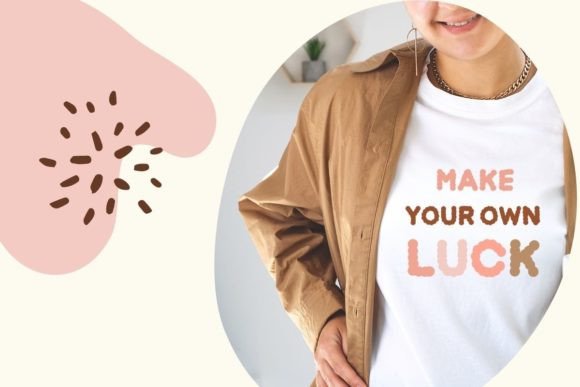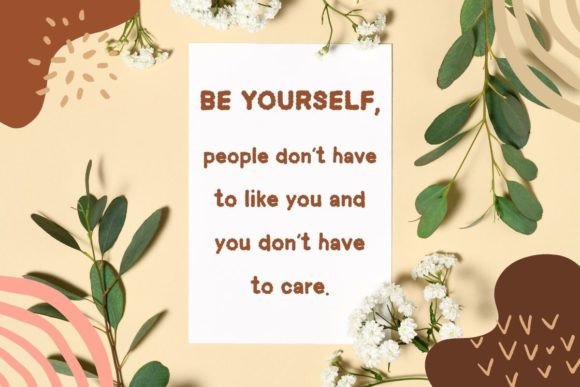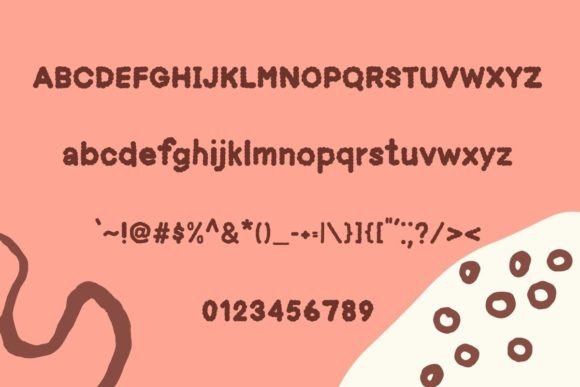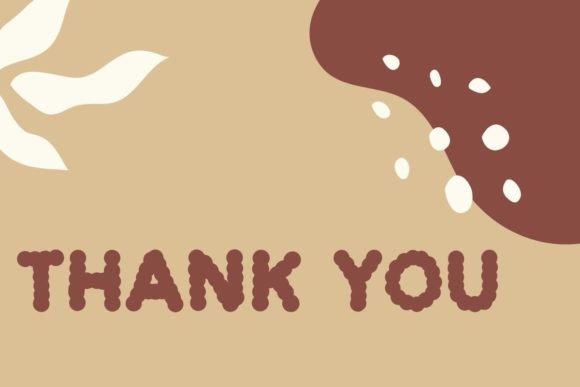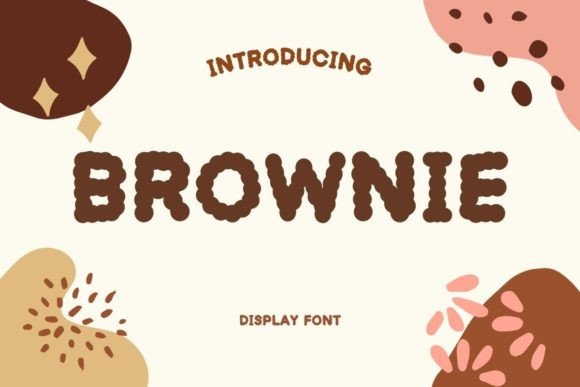
The Ultimate Guide to Brownie Font: A Deliciously Bold Addition to Your Design Library
I’ll never forget the time I was working on a project for a client’s bakery, and I needed a font that would make their brand stand out. I scoured the internet, tried out dozens of fonts, but nothing seemed quite right. That was until I stumbled upon Brownie Font. This bold, hand-drawn display font has been a game-changer for my designs, and I’m excited to share its awesomeness with you! 🍰
An Honest Review of Brownie Font
So, what makes Brownie Font so special? Let’s dive into the good stuff! ✨
- ✅ Perfect for display text: Brownie Font is designed to make a statement. Its bold, chubby characters are perfect for creating eye-catching posters, banners, and advertising materials.
- ✅ Cute and playful: This font has a fun, whimsical vibe that’s perfect for brands that want to appear friendly and approachable.
- ✅ Easy to read: Despite its bold nature, Brownie Font is surprisingly easy to read, even at smaller sizes.
Of course, no font is perfect, and Brownie Font has a few quirks to be aware of: 🤔
- ⚠️ Limited use cases: While Brownie Font is amazing for display text, it may not be the best choice for body text or smaller sizes.
- ⚠️ Glyph limitations: Some users have reported that the font could benefit from more glyphs, particularly for non-English languages.
The Story Behind Brownie Font
Ever wonder how a font like Brownie comes to be? 🤔 While the actual story behind Brownie Font might be a mystery, it’s easy to imagine a designer with a passion for baking and typography creating this deliciously bold font. Perhaps they were inspired by the playful, hand-drawn signs found in bakeries and cafes around the world. Whatever the story, Brownie Font is a true gem that’s sure to satisfy your design cravings!
| Font Name | Brownie Font |
| Author | zikadoozz |
| Is Brownie Font suitable for body text? | While Brownie Font is amazing for display text, it’s not the best choice for body text or smaller sizes. |